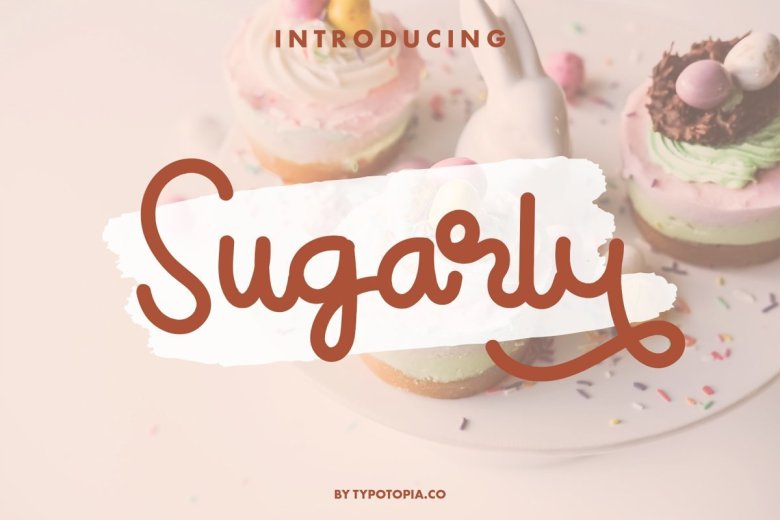
Sugarly Handwritten Monoline Script Font
Introducing Sugarly Handwritten Script is a Fancy & Unique Monoline Script Font. Sugarly Monoline Script Font that is absolutely great for your next creative project such as logos, printed quotes, invitations, cards, product packaging, headers, Logotype, Letterhead, Poster, Apparel Design, Label, and etc.